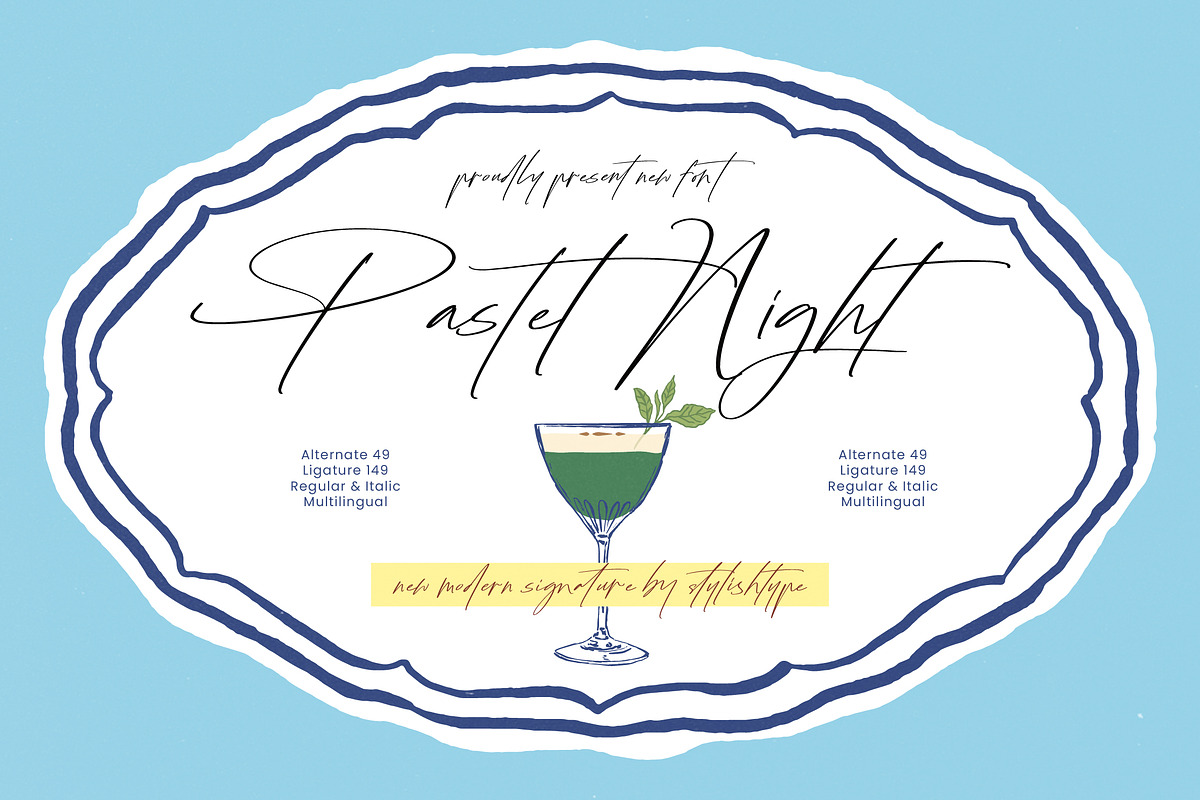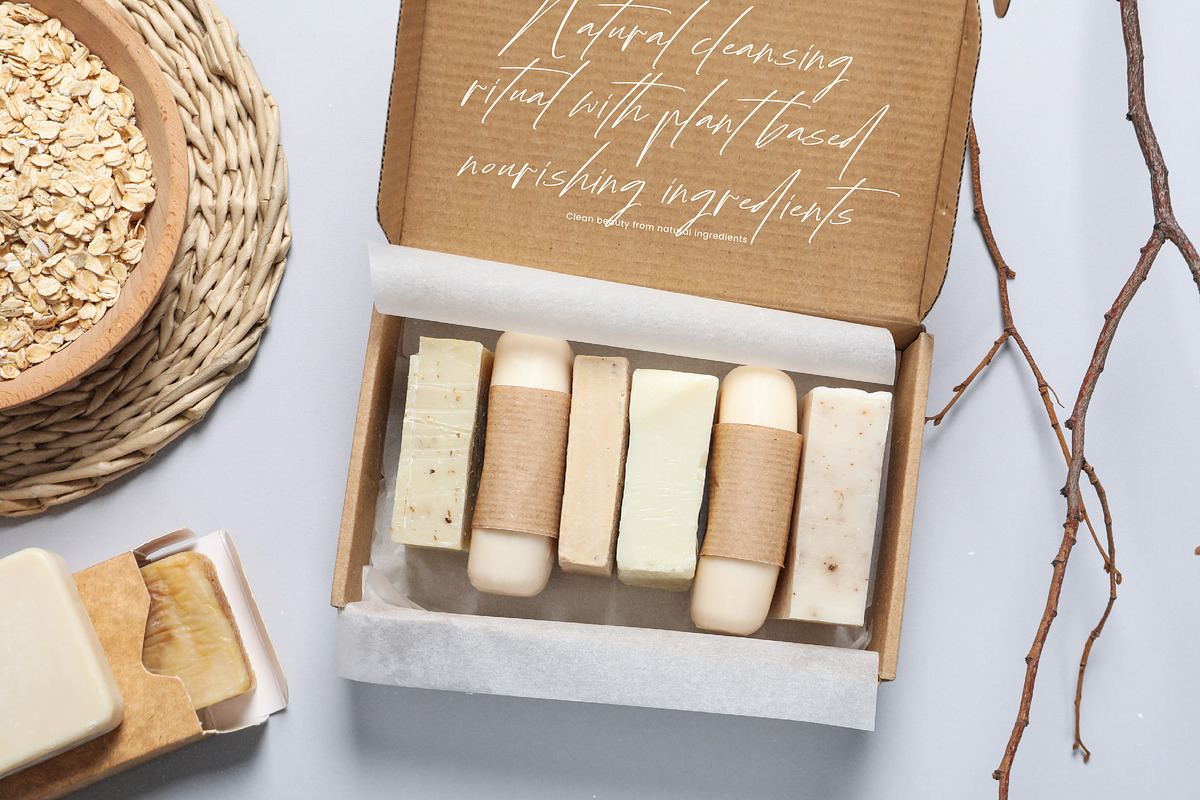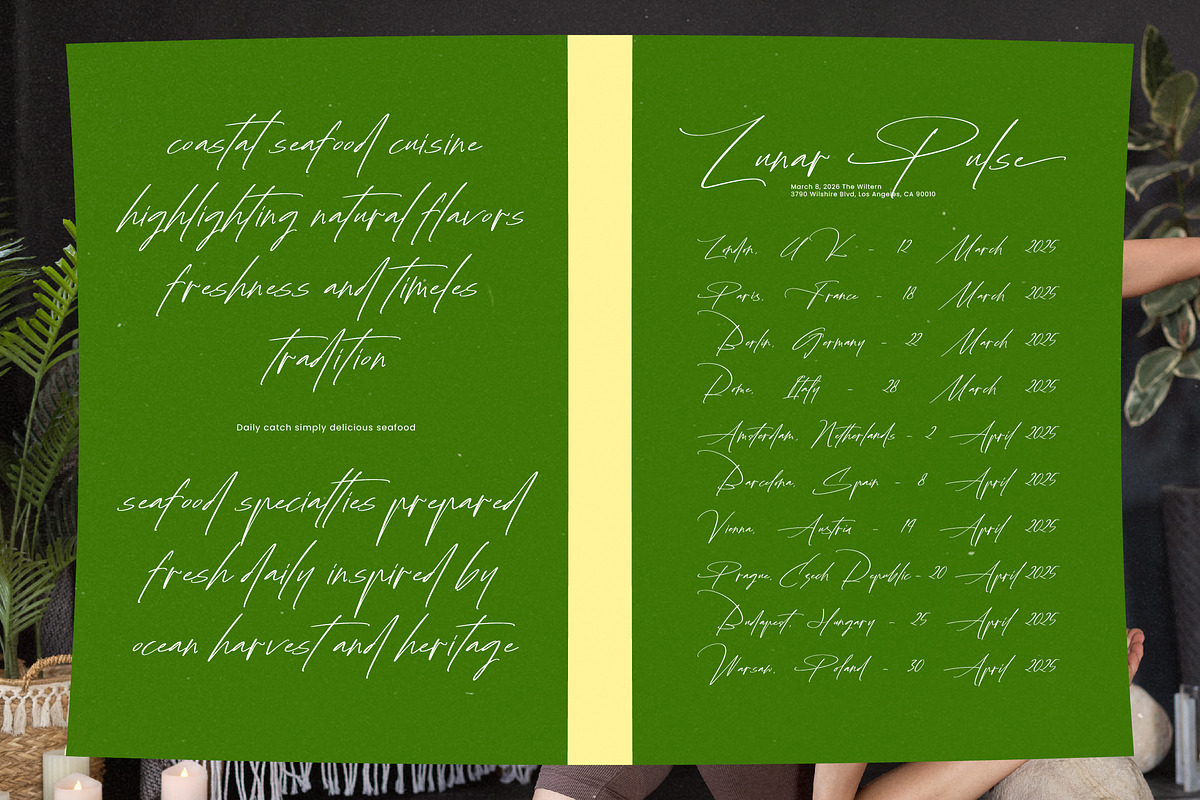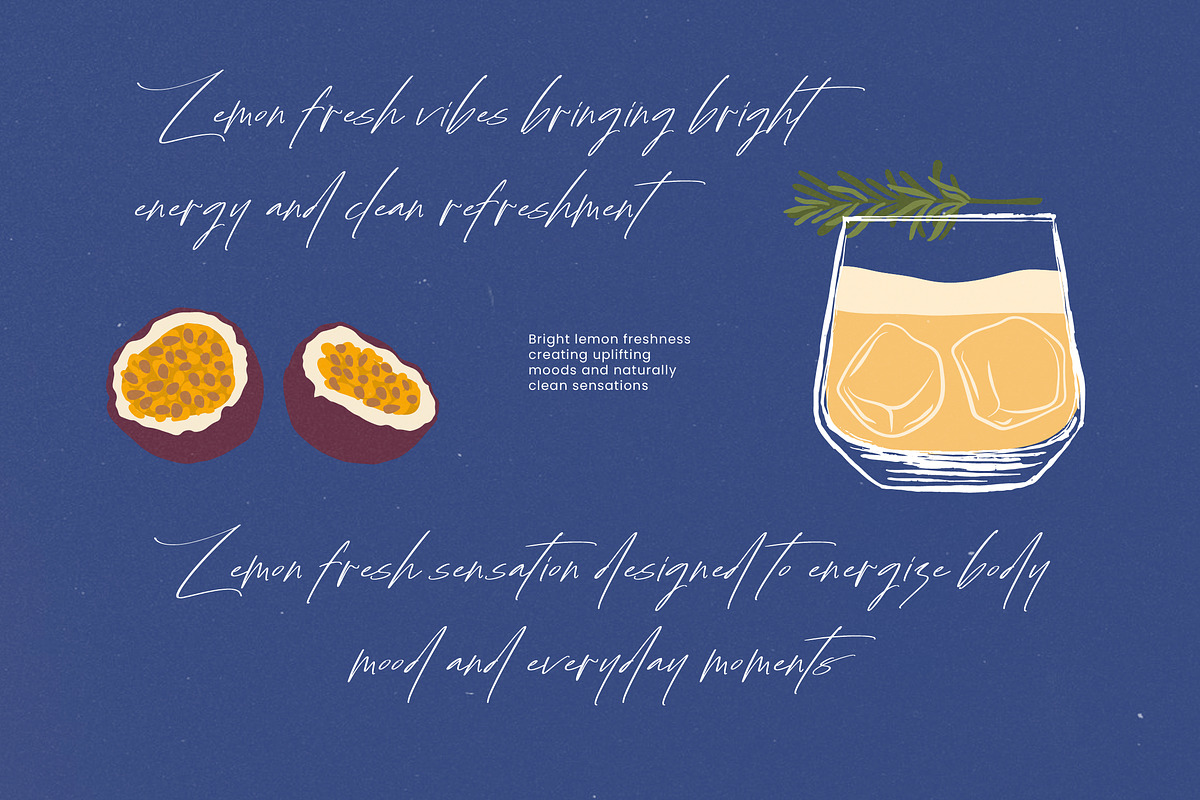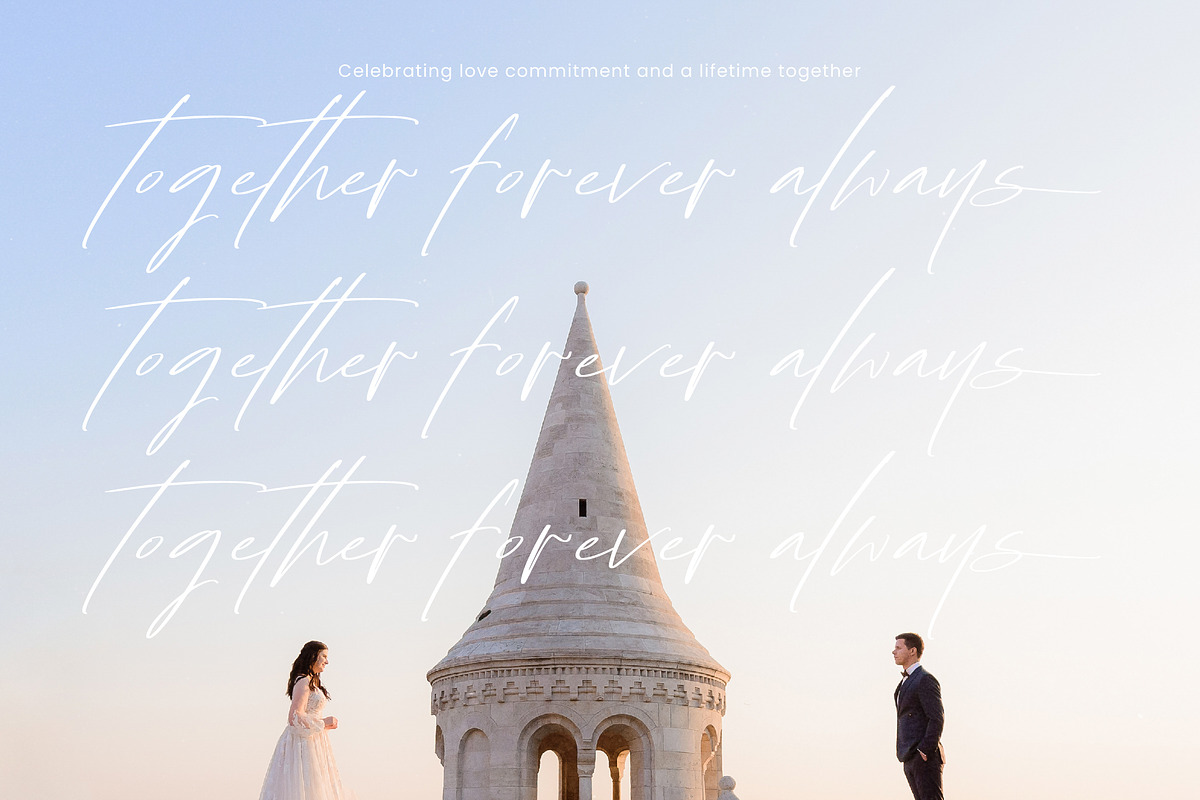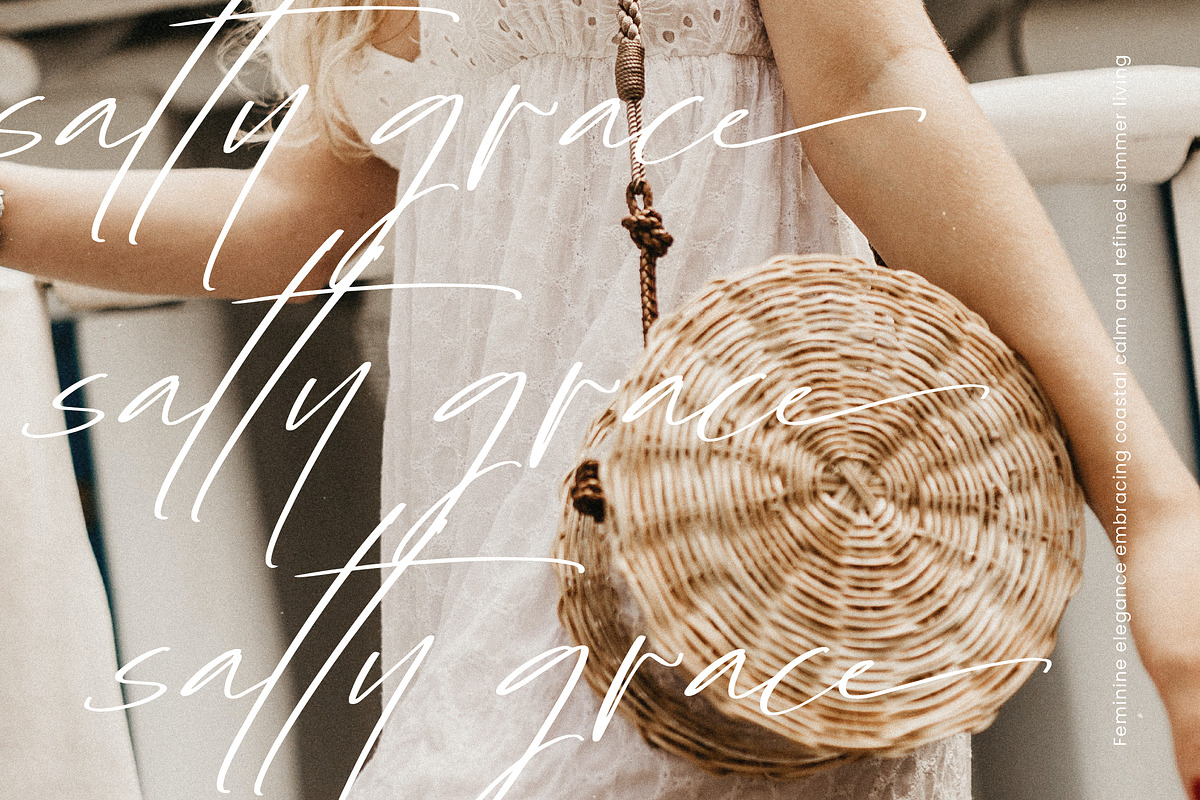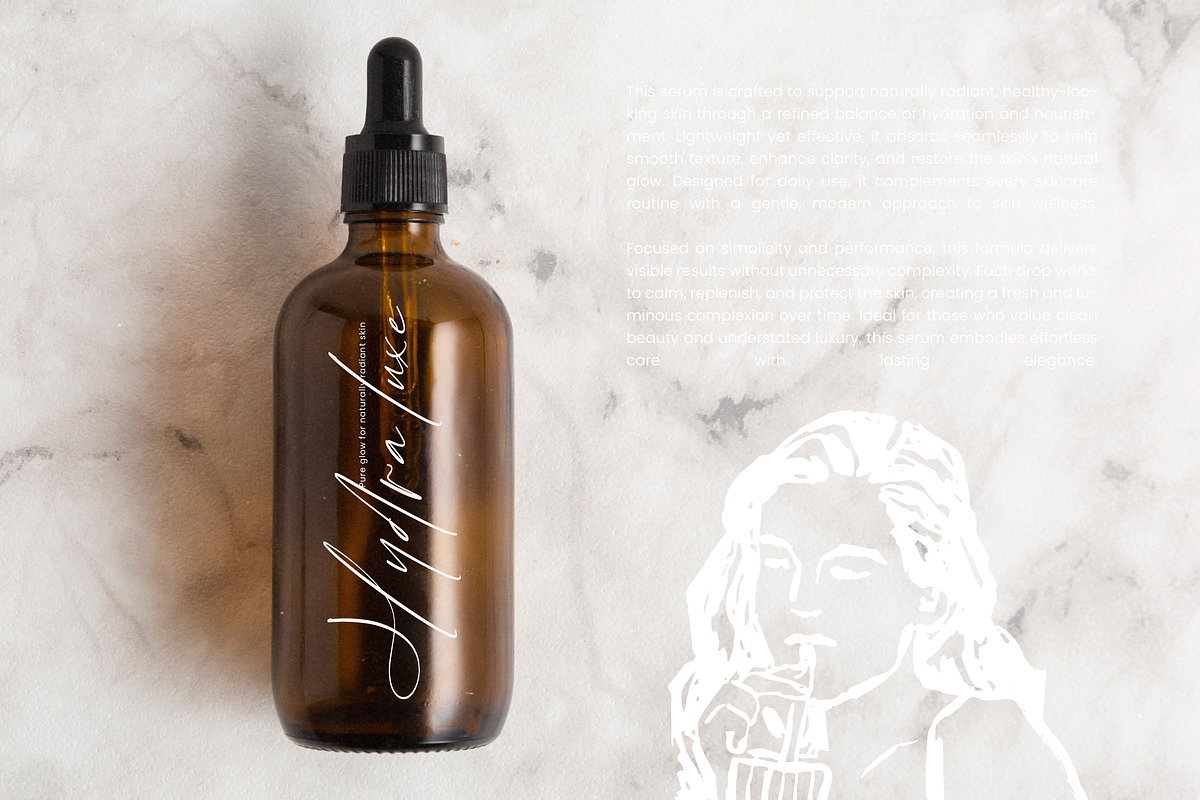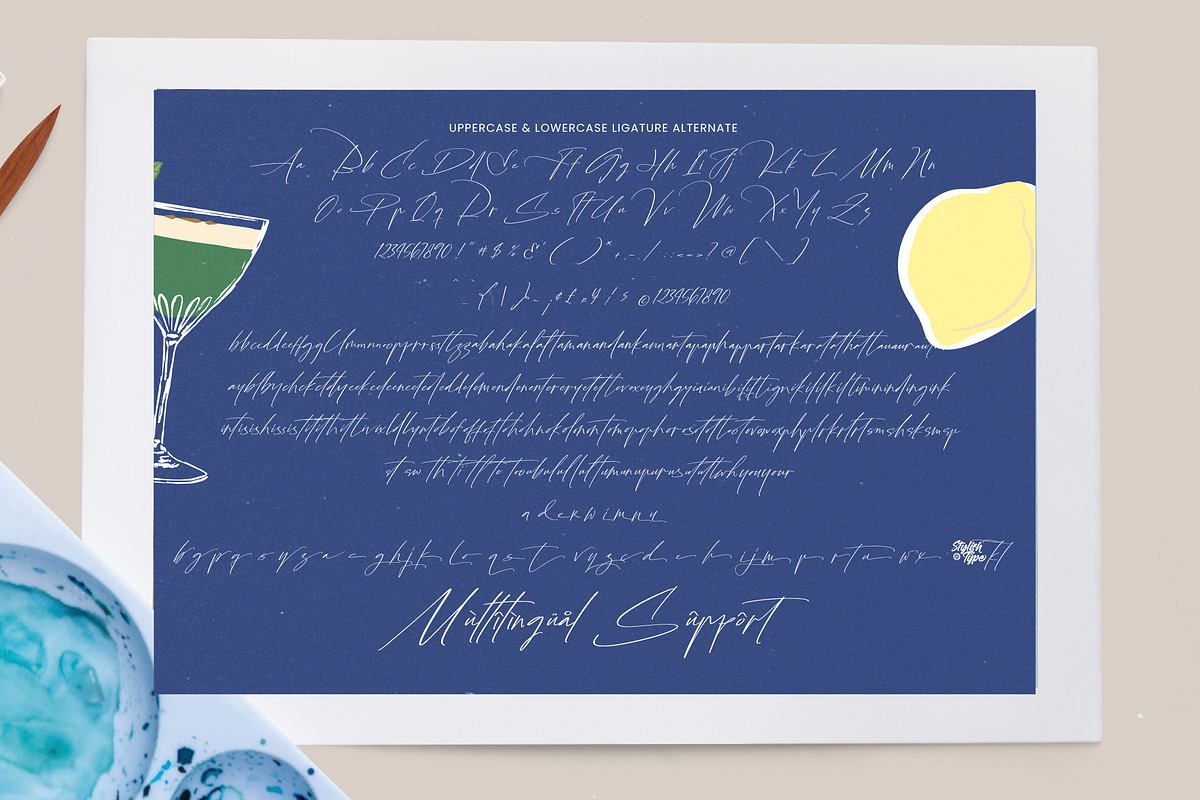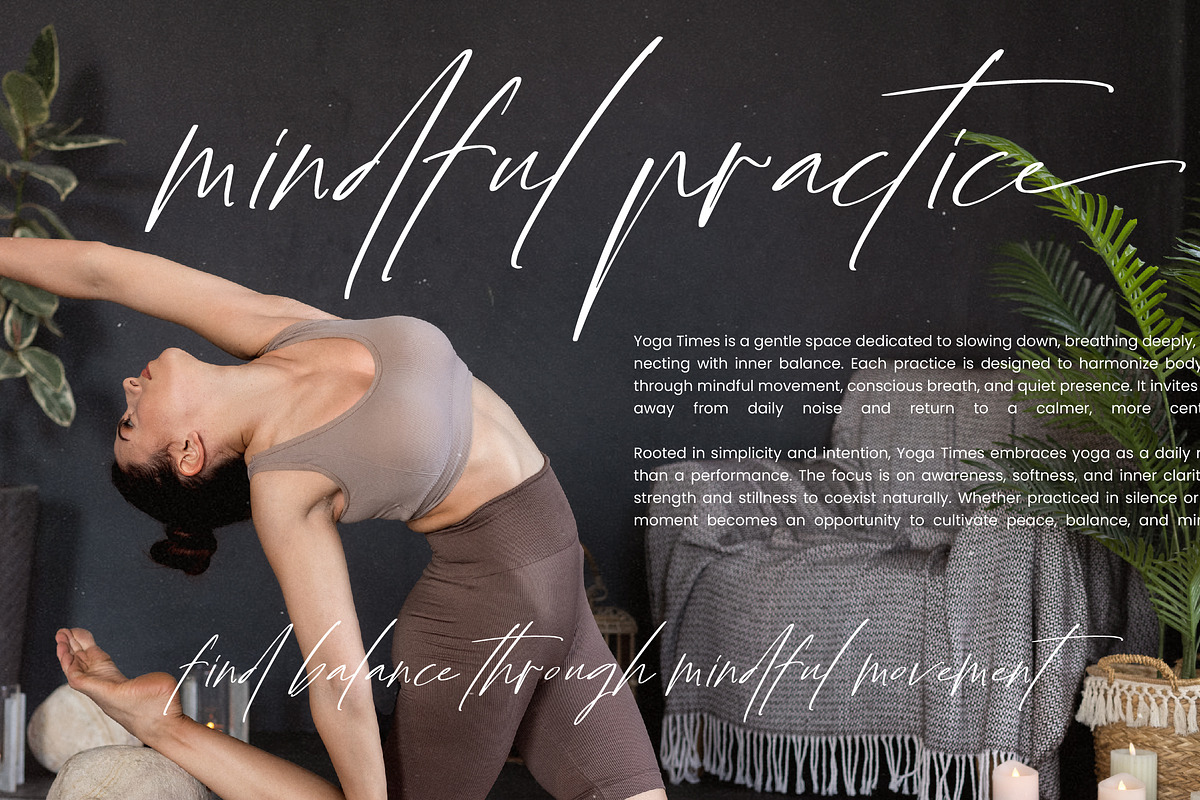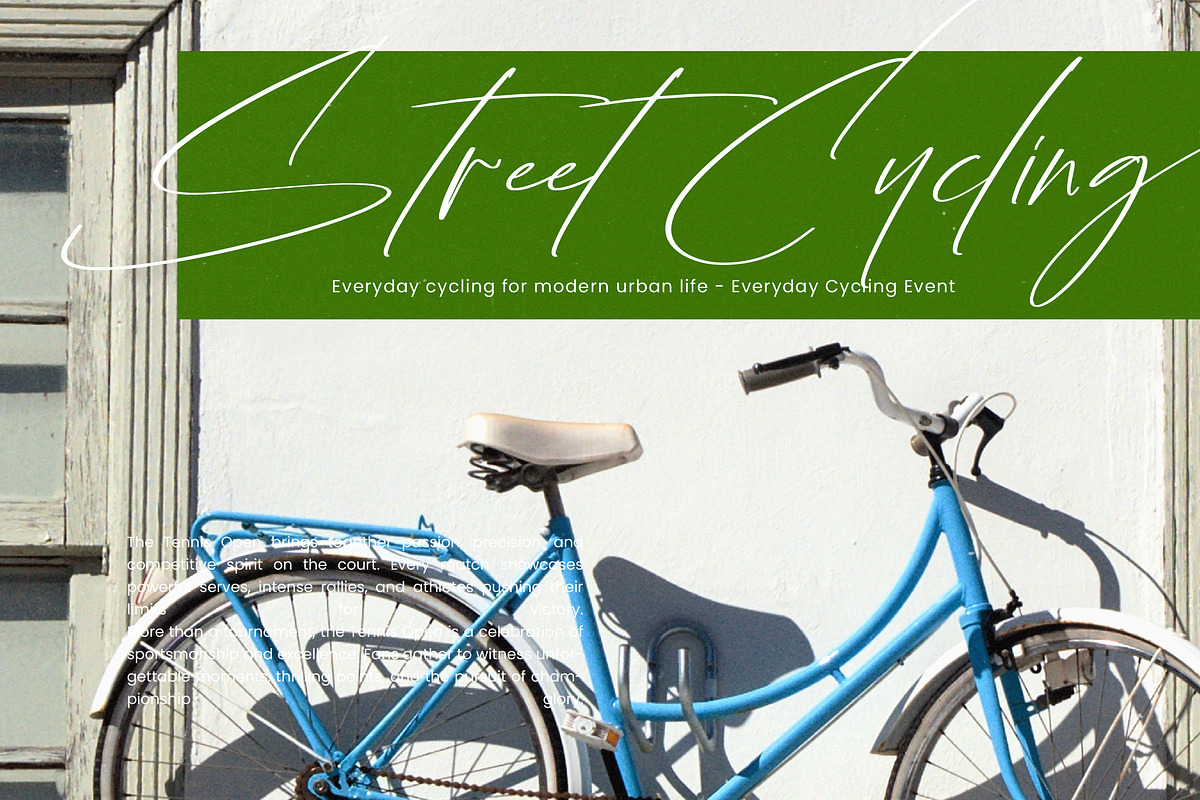
Pastel Night Modern Signature
Pastel Night - Modern Signature , Pastel Night is a modern signature typeface with ultra-elegant strokes and a naturally flowing handwritten rhythm, designed for refined branding, editorial aesthetics, boutique packaging, invitations, and lifestyle visuals that demand a soft, sophisticated personality. With 149 ligatures, 49 alternates, and both regular & italic styles, this font offers complete creative flexibility for crafting expressive logos, fashion identities, beauty campaigns, social media posts, and premium product designs. Its thin, graceful lines bring a luxurious sense of intimacy and effortless charm, making every composition feel intentional, stylish, and beautifully minimal.